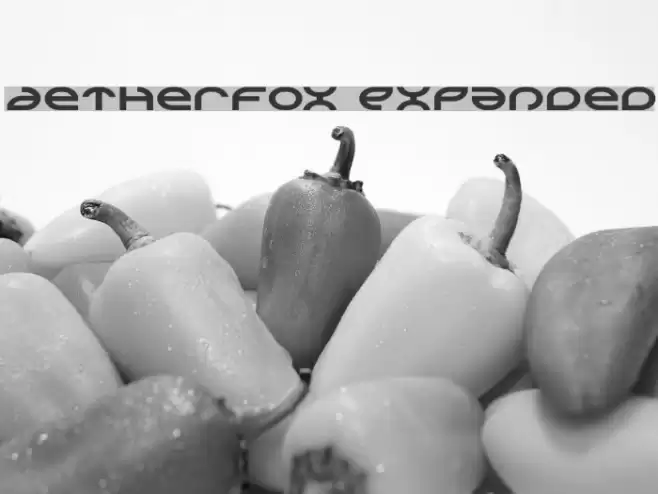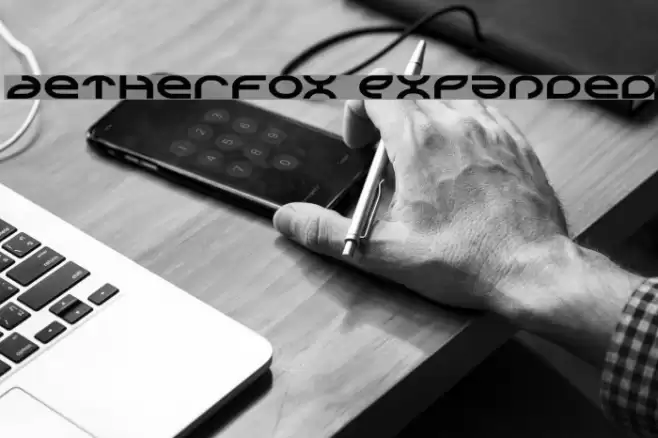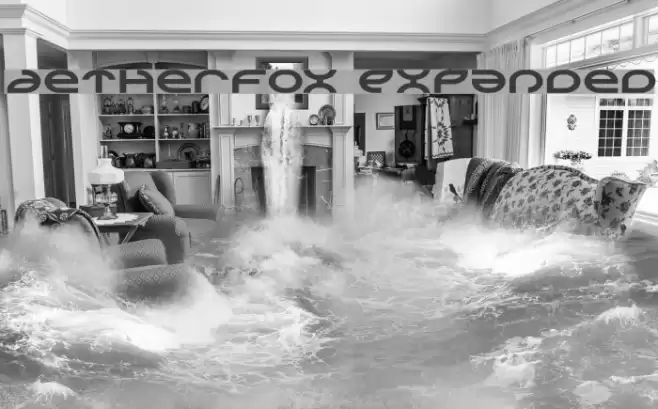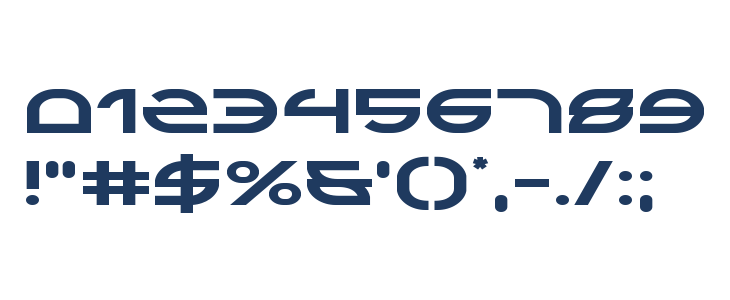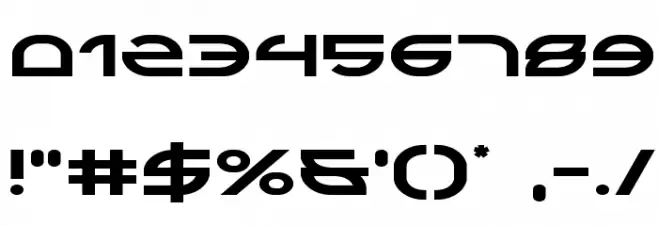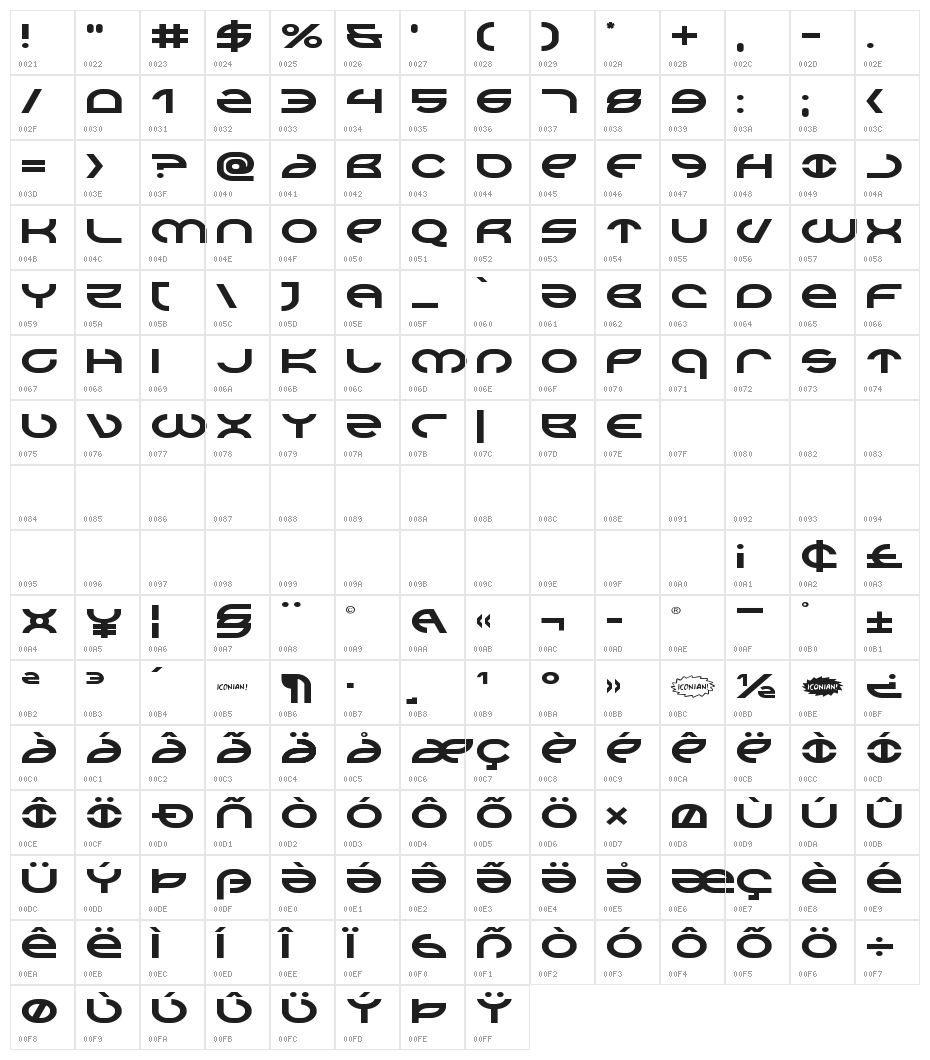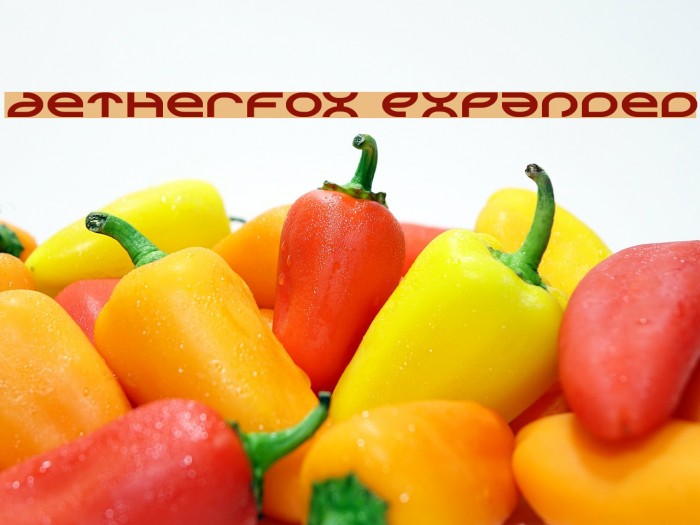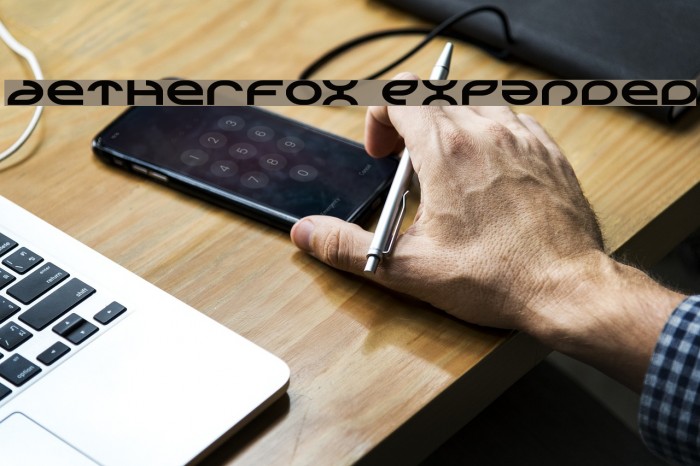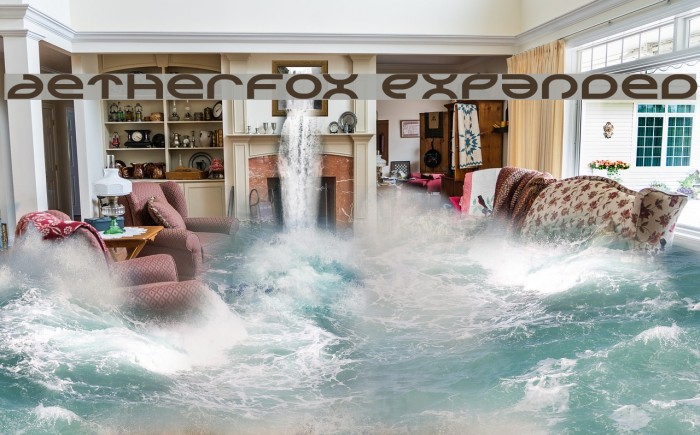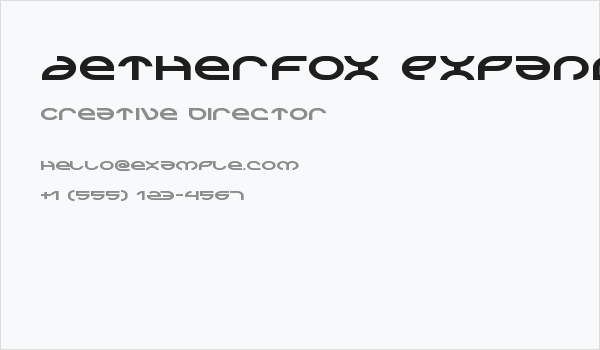
Aetherfox Expanded Font
Aetherfox Expanded Description
This font features a futuristic and geometric design, characterized by its bold and expanded letterforms. The characters exhibit a unique blend of curves and straight lines, creating a visually striking appearance. The uppercase and lowercase letters maintain a consistent style, with rounded edges and a distinct horizontal emphasis. The numerals and special characters follow the same design principles, ensuring uniformity across all glyphs. This font's modern aesthetic is ideal for projects that require a contemporary and eye-catching typeface.
A futuristic, geometric font with bold, expanded letterforms and a modern aesthetic from Uncategorized fonts.
- Proposed Projects: Ideal for sci-fi themed designs, technology branding, video game titles, and modern advertising.